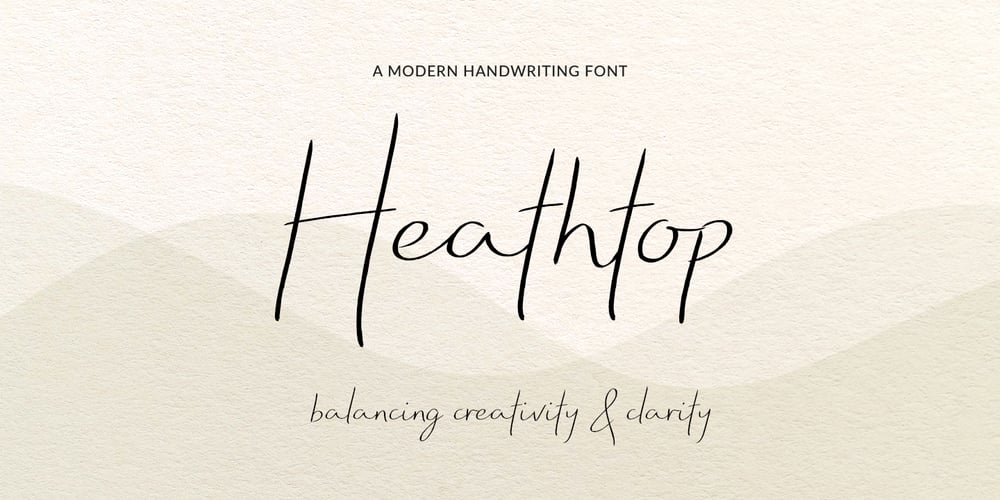
Heathtop
Heathtop font
Heathtop Font Family was designed by Danielle Warne and published by Warnetype. Heathtop contains 2 styles and family package options. A modern handwritten script font that balances creativity with clear legibility that contains upper & lowercase characters, all punctuation and numerals. Designed so the text reflects stylish natural handwriting, with ligatures and carefully kerned characters mixed with unjoined letters for a contemporary feel.